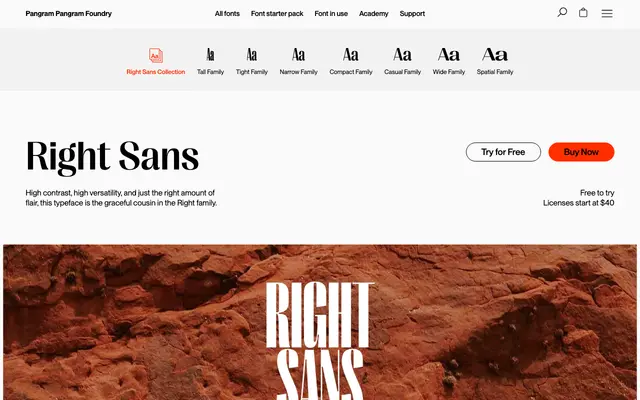
PP Right Sans
Pangram Foundry · Alex Slobzheninov · 2022
PP Right Sans specimen from Pangram Foundry
A 98-style high-contrast sans by Alex Slobzheninov, sitting between Right Grotesk and Right Gothic in the Right superfamily.
Right Sans is a 98-style high-contrast sans by Alex Slobzheninov, structured as seven widths and seven weights with italic cuts. Pangram describe it as fancier than your average sans without crossing into serif territory. Together with Right Grotesk and Right Gothic it forms a pairing system of more than 300 styles, with Cyrillic support across the family.